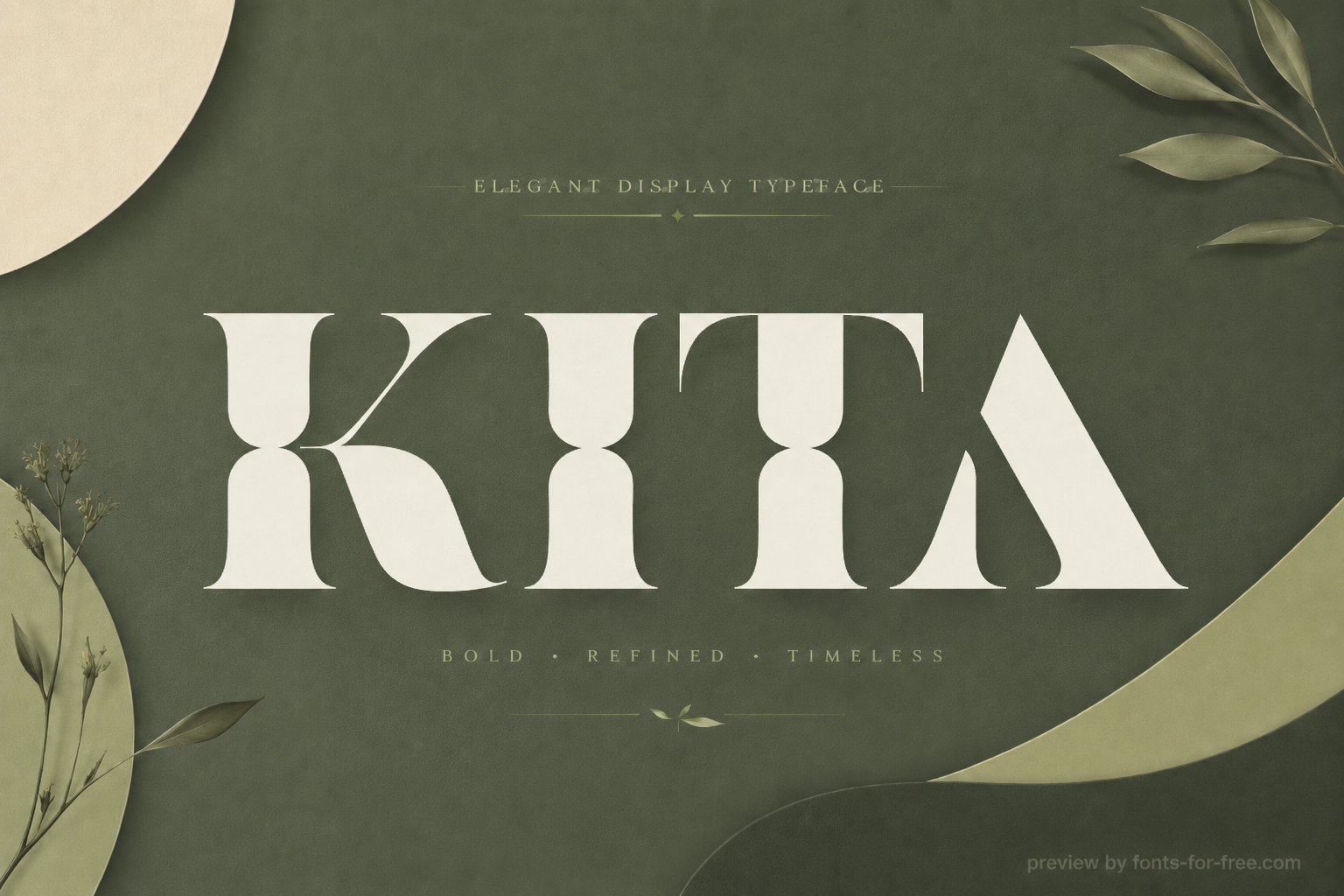
Kita
Kita is a display serif typeface with heavy vertical forms, high contrast, and wide letter shapes that give the design a formal, refined tone. Its capitals use broad slab-like serifs, smooth inner curves, and sculptural joins, creating a strong rhythm suited to short words and large settings. The font has good readability for headlines, logos, title pages, posters, packaging, and editorial display text, but its decorative proportions make it less practical for long paragraphs or small body copy. The font is distributed under the SIL Open Font License 1.1.